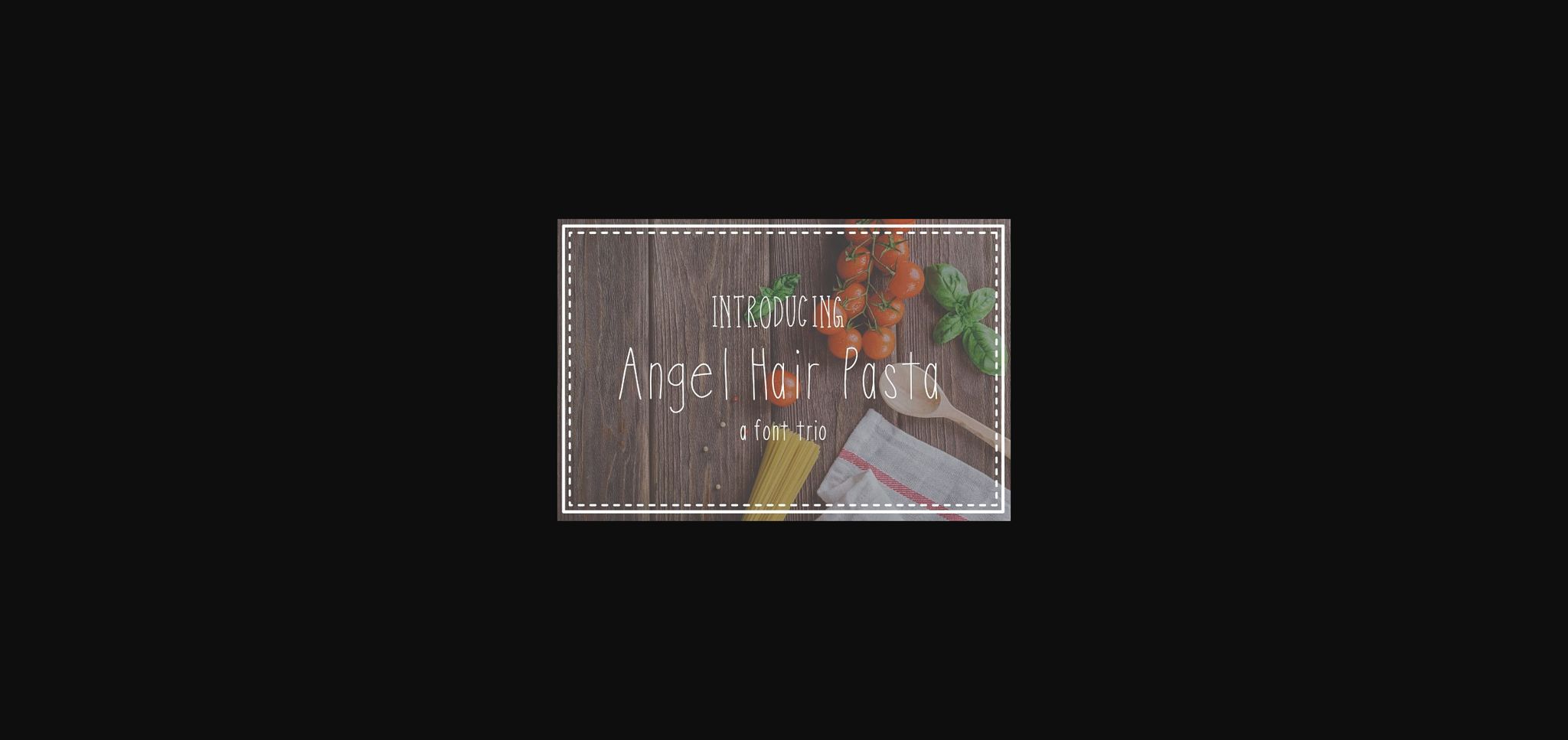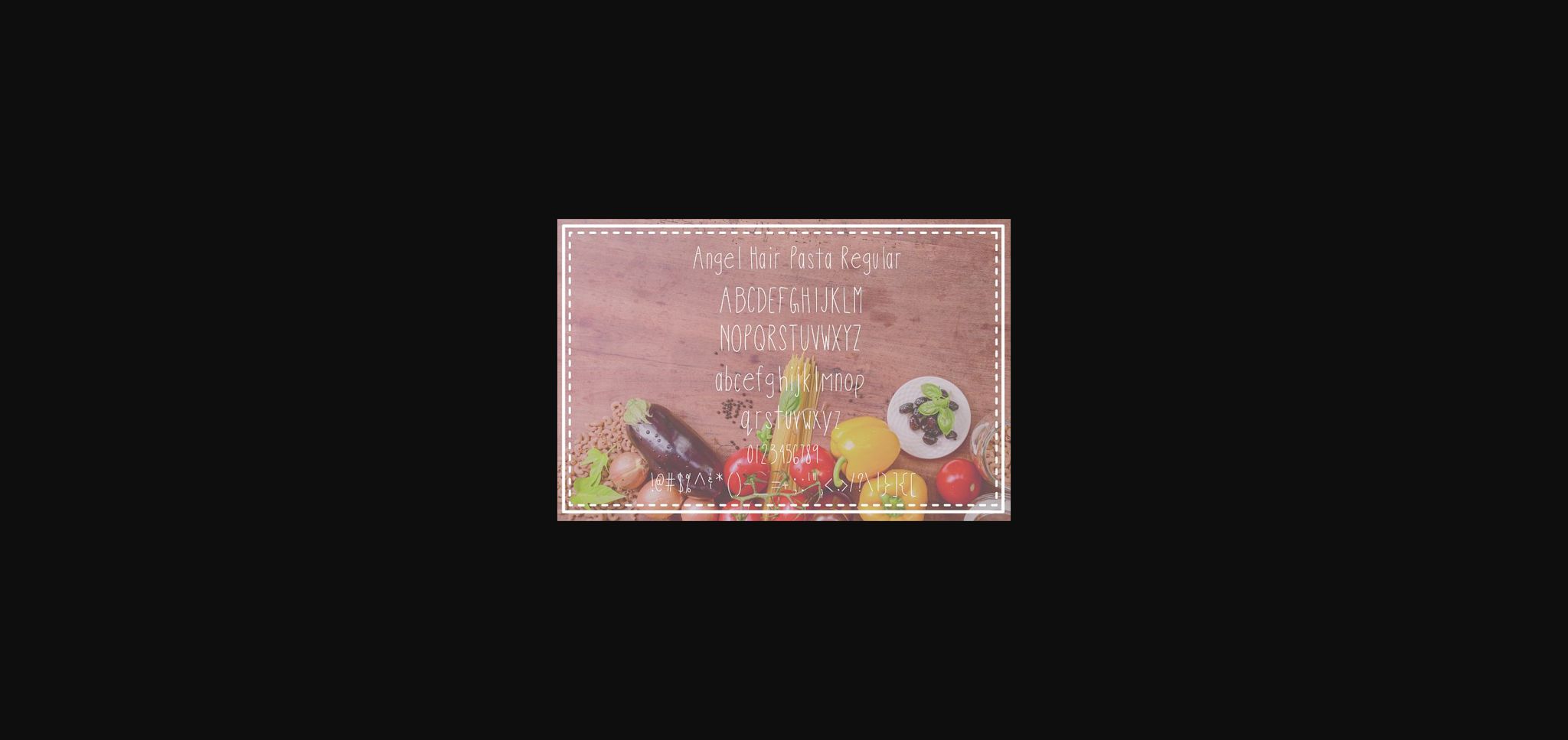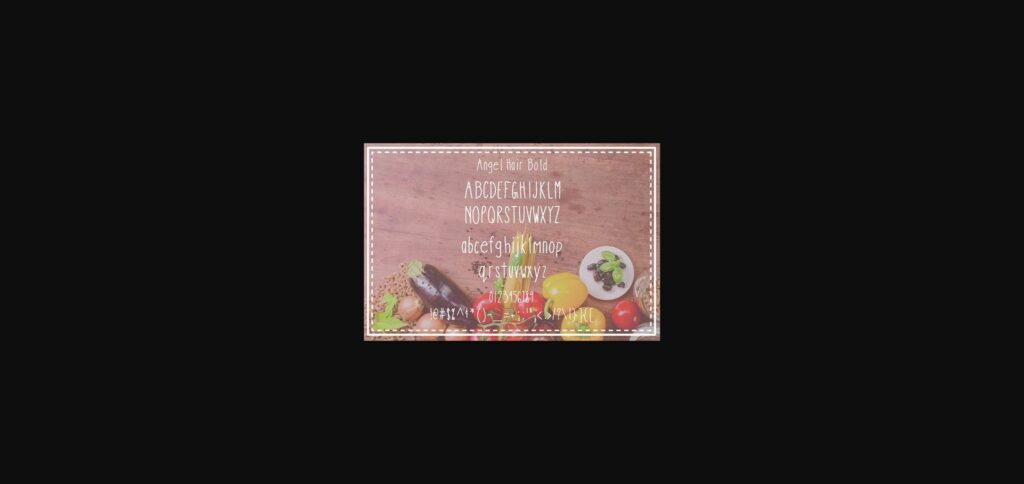
HomeSans Serif FontsAngel Hair Pasta Font Sans Serif Fonts Angel Hair Pasta Font FacebookXPinterestWhatsApp 1 of 6 ... Angel Hair Pasta Font Poster 2... Angel Hair Pasta Font Poster 3... Angel Hair Pasta Font Poster 4... Angel Hair Pasta Font Poster 5... Angel Hair Pasta Font Poster 6... About Angel Hair Pasta Font Angel Hair Pasta is a thin, delicate and graceful sans serif font. This gentle font will look radiant on a variety of design ideas. It will add a joyful and charming touch to each of your projects! DOWNLOAD NOW People also explored Valentine Kids Font Mokutton Font Teacher Stylish Font John Davidson Font Quenella Font Rabeeca Font Cottage and Farmhouse Font Single Font Snowshoes Font 294 0 TagsAngel Hair Pasta Font Previous articleSlim Pro FontNext articleGlendale Font LEAVE A REPLY Cancel reply Comment: Please enter your comment! Name:* Please enter your name here Email:* You have entered an incorrect email address! Please enter your email address here Website: Save my name, email, and website in this browser for the next time I comment. Personal Use Free Awkward Personal Use Free Read more about this font Cute Butterfly Personal Use Free Read more about this font Rhetorical Personal Use Free Read more about this font Einstaint Personal Use Free Read more about this font BLOG How to Install and Use Fonts on Windows, macOS, and Web Projects How to Install and Use Fonts on Windows, macOS, and Web Projects Fonts are a crucial part of design and branding. Whether you’re designing a... Fonts That Capture the Spirit of New York City Exploring Font Trends Best Fonts for T-Shirt Design – Top 2025 Picks